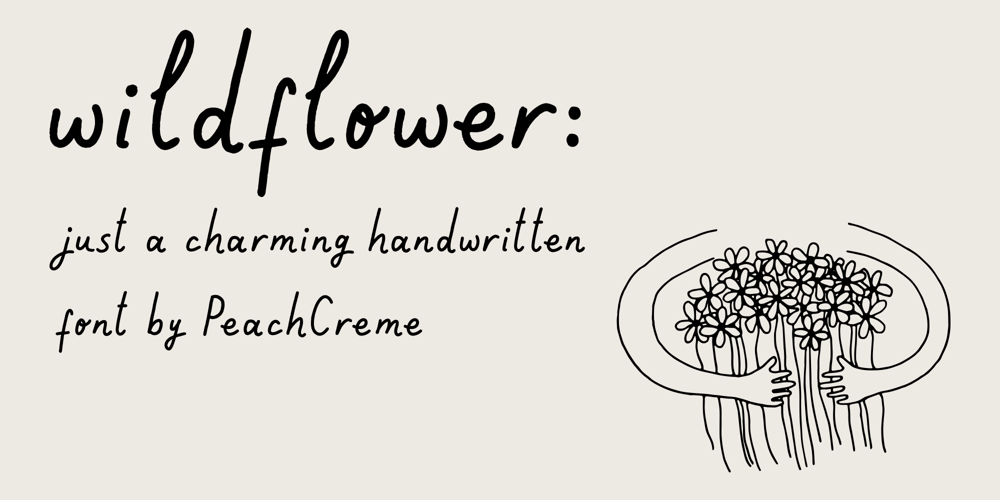
Wild Flower Peach Creme Font Family was designed by Gulya Yeap and published by PeachCreme. Wild Flower Peach Creme contains 1 styles and family package options. Bonjour, and we are pleased to present “Wildflower”! A cheery, little hand-lettered typeface that has a charming and reassuring air. Ideal for making banners, logos, cards, and packaging, among other things. You may use its endearing and friendly personality to offer your work a genuine, one-of-a-kind vibe.